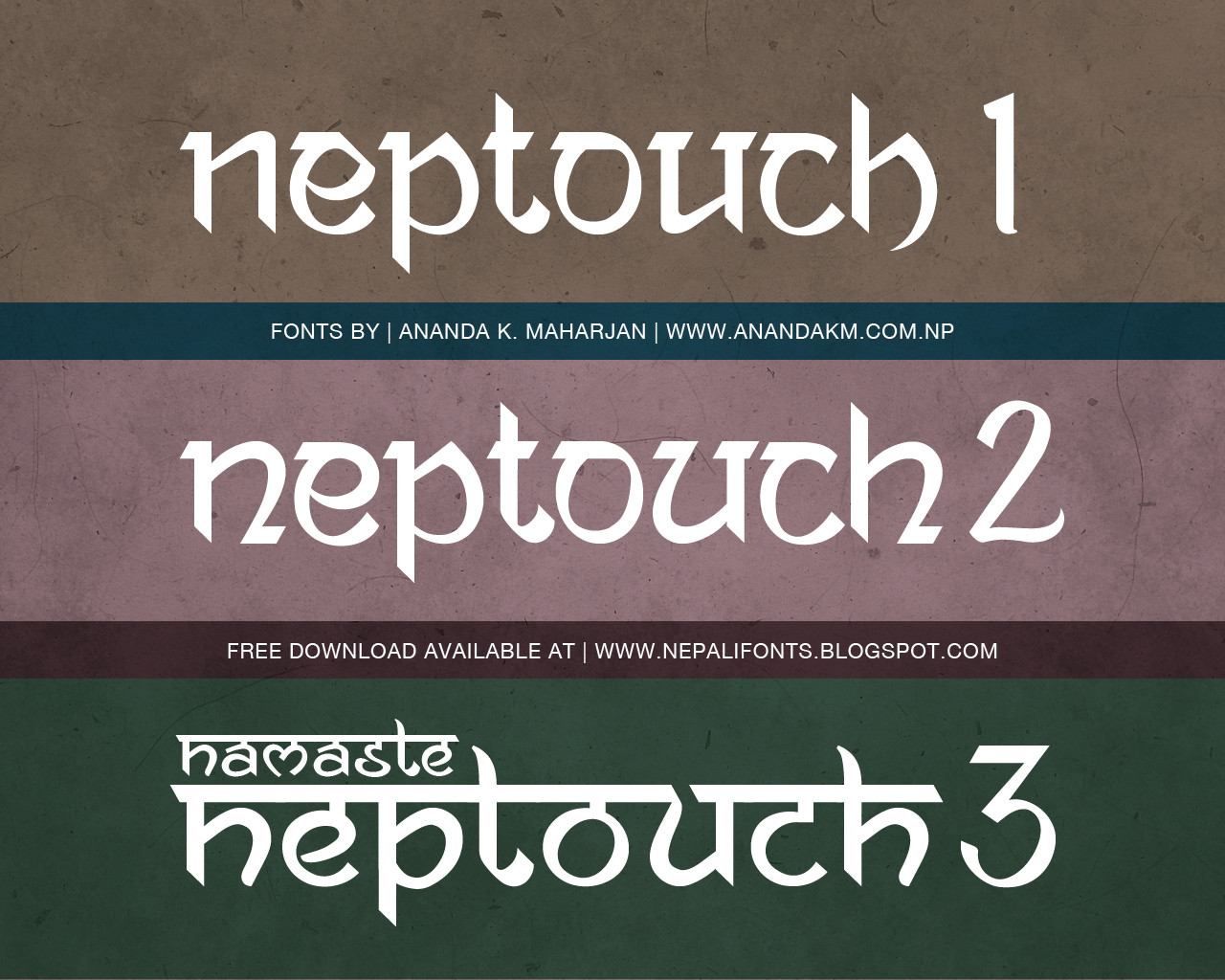
Fonts: Ananda Neptouch1, 2 and 3 (Namaste)Neptouch fonts are inspired by Nepali Devanagari Sanskrit script.
Designed by: Ananda K. Maharjan
Kathmandu, Nepal, 2011.